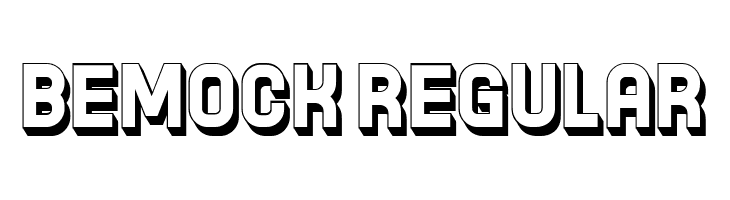
A bold, three-dimensional font with strong shadow effects and a geometric style.
A playful, handwritten font with smooth, flowing characters and a whimsical style.
A playful, fluid handwritten font with smooth, flowing lines.
A playful, handwritten font with tall, narrow letterforms and dynamic strokes.
A playful, handwritten font with dynamic strokes and a whimsical style.
A geometric, futuristic font with bold, angular lines and a layered appearance.
A delicate and elegant handwritten script font with flowing, connected letterforms.
A delicate and elegant handwritten script font with flowing cursive letterforms.
An elegant and flowing script font with dramatic curves and intricate details.
A graceful calligraphic font with elegant, flowing strokes.